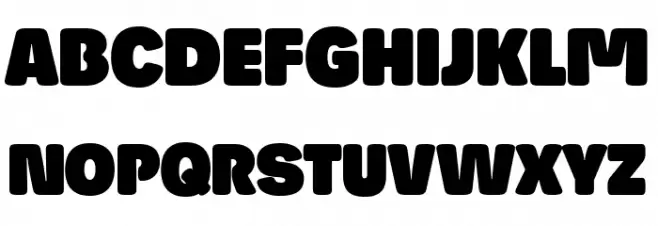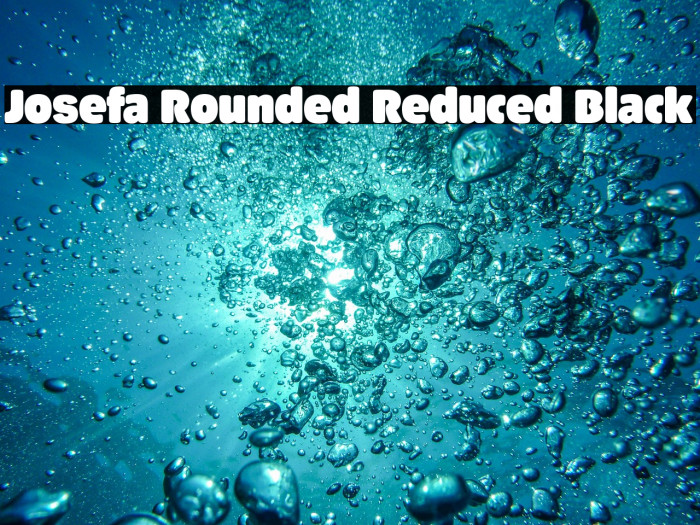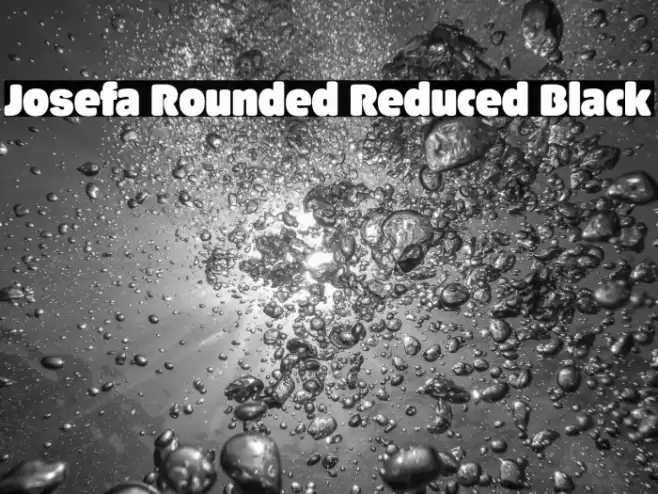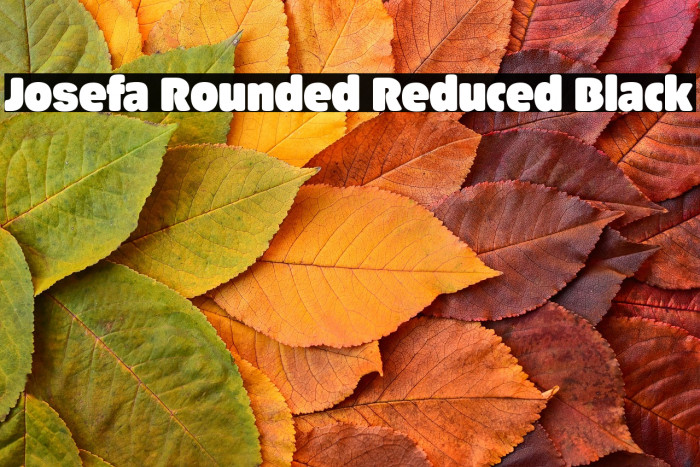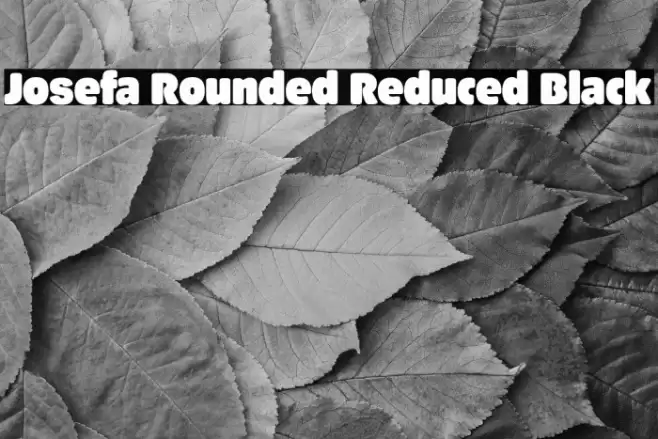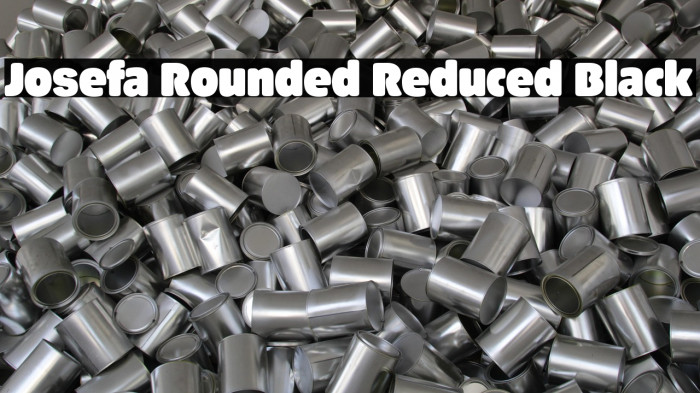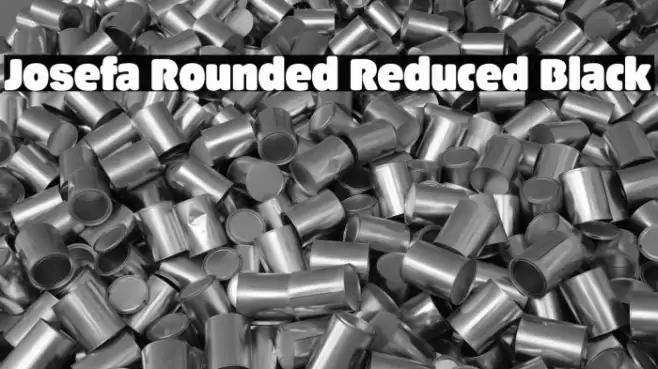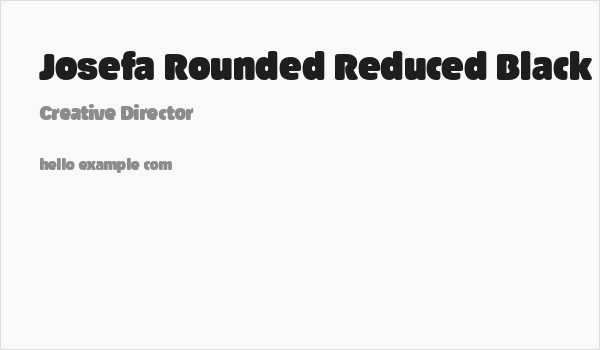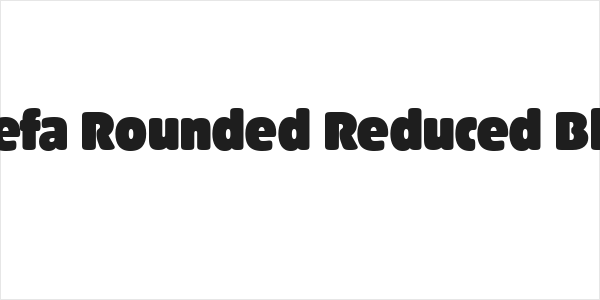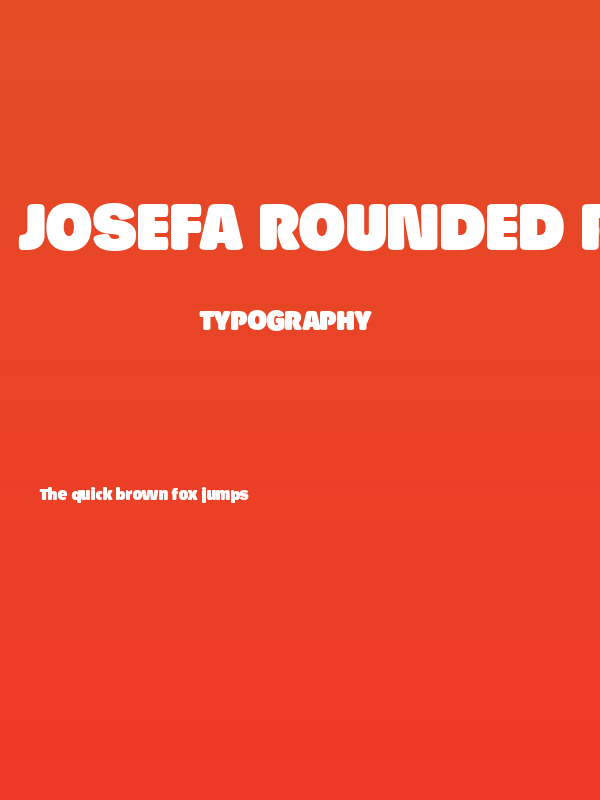
Josefa Rounded Reduced Black Font
Josefa Rounded Reduced Black Description
This font features a bold and rounded style, characterized by its thick, uniform strokes and smooth curves. The letters are designed with a playful and approachable aesthetic, making them ideal for projects that require a friendly and inviting tone. The rounded edges soften the overall appearance, while the consistent weight across all characters ensures readability and impact. This style is particularly effective in capturing attention and conveying a sense of modernity and fun. The font maintains a balanced proportion, with each character having a similar width, contributing to a cohesive and harmonious look. The spacing between characters is tight, which enhances the compact and solid feel of the text.
| Proposed Projects | Ideal for children's books, playful branding, product packaging, and eye-catching headlines. |